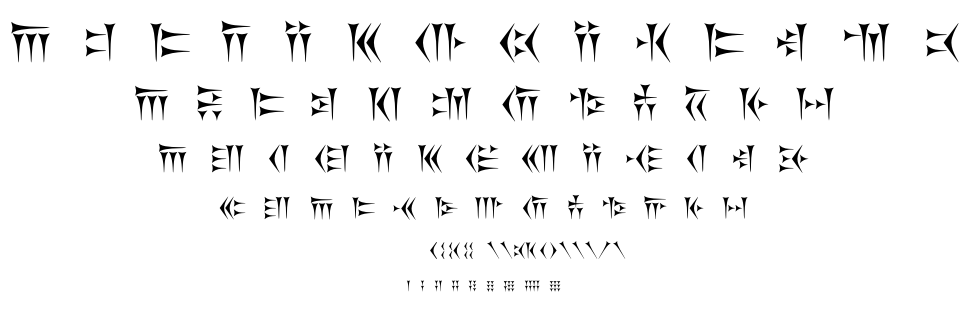
Made for researchers of Old Persian cuneiform script, Khosrau is a font whose all the glyph’s shapes are rigorously moulded to be the most acurately similar to Old Persian texts found on stone carving scriptures from the times of emperor Darius, the Great. For more information on the font and how to use it, contact me: fereydoun23@gmail.com